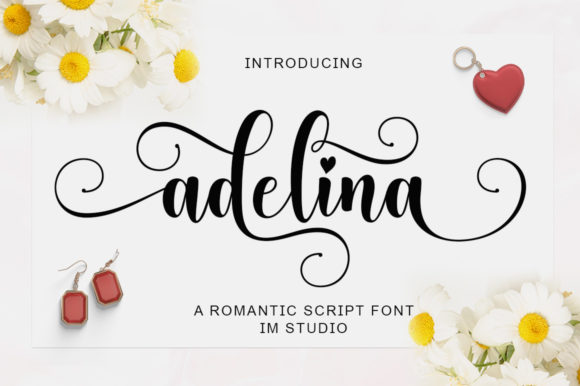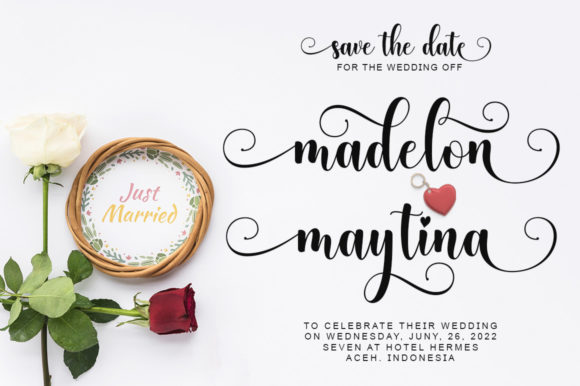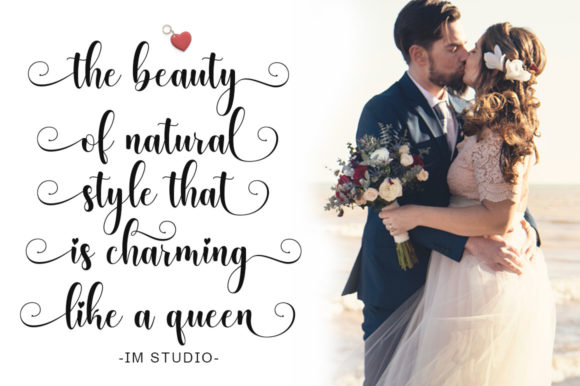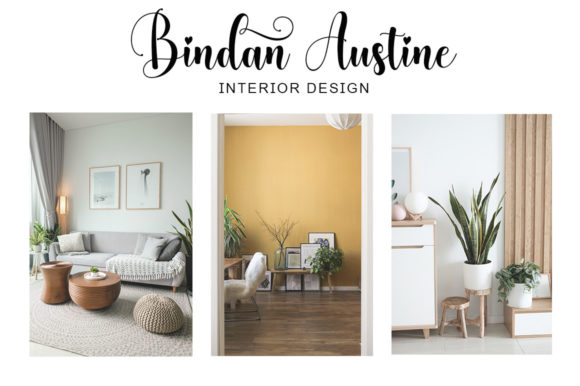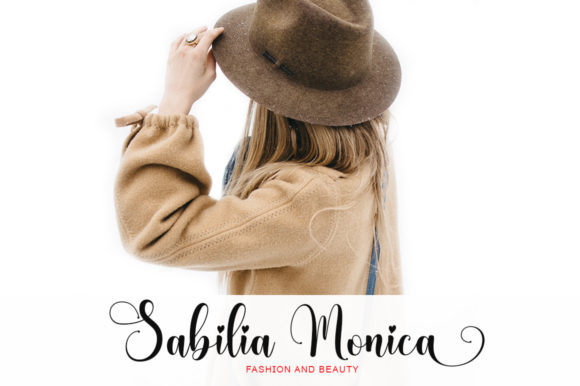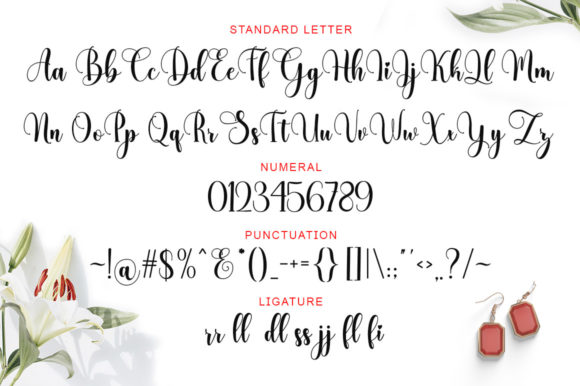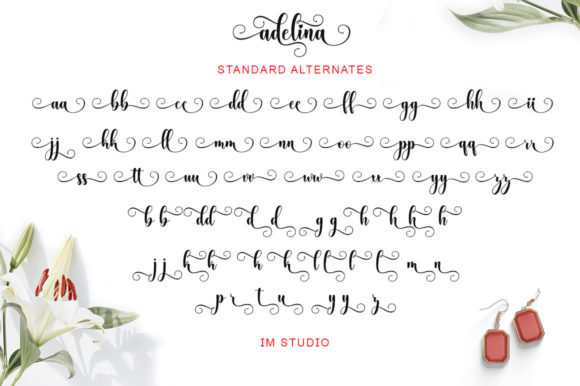
Adelina Script Font
About Adelina Script Font
Adelina Script is a subtle handwritten script font with a classic calligraphy style. It is perfect for greeting cards, wedding invitations, birthday cards, and more.